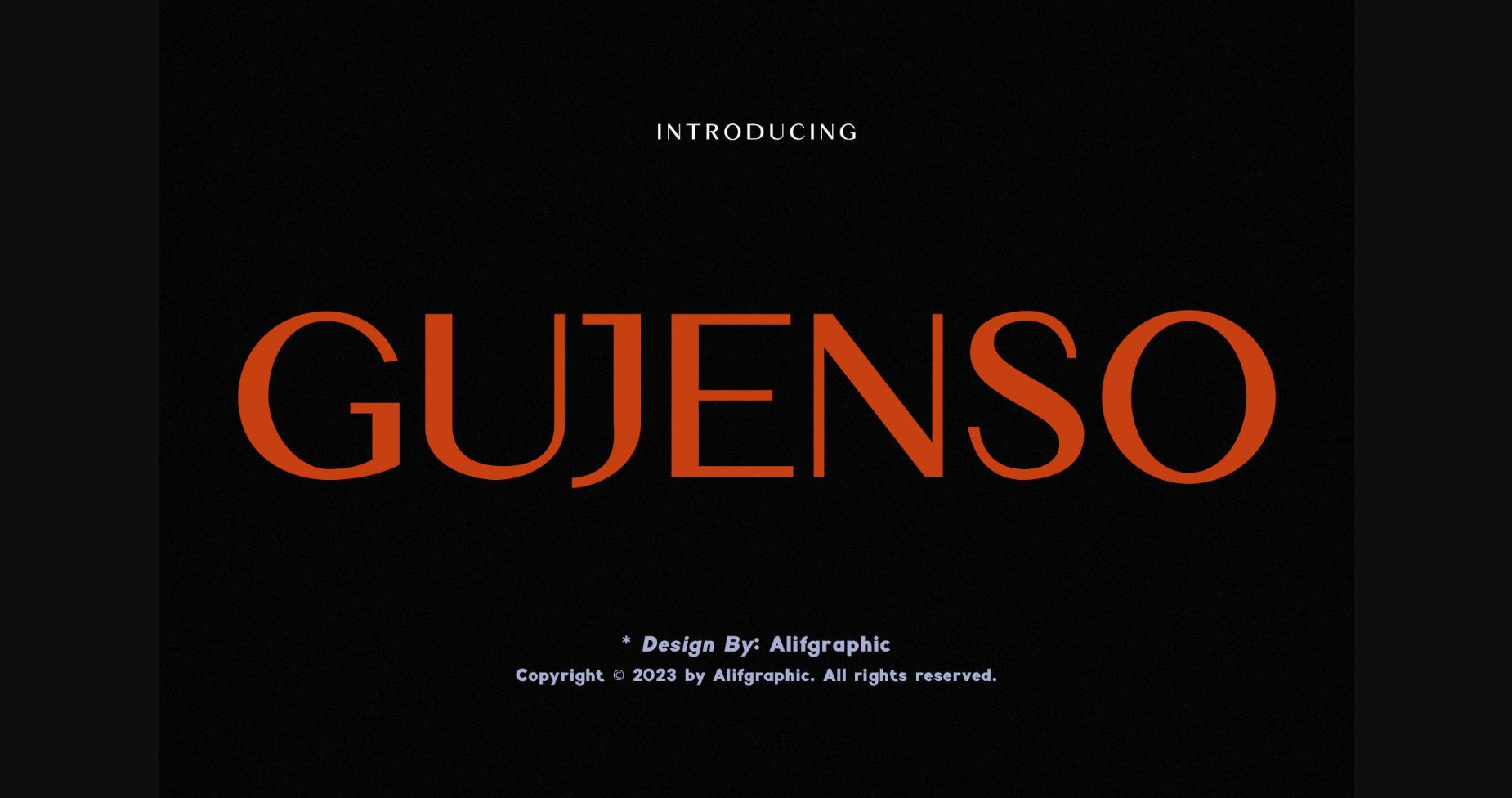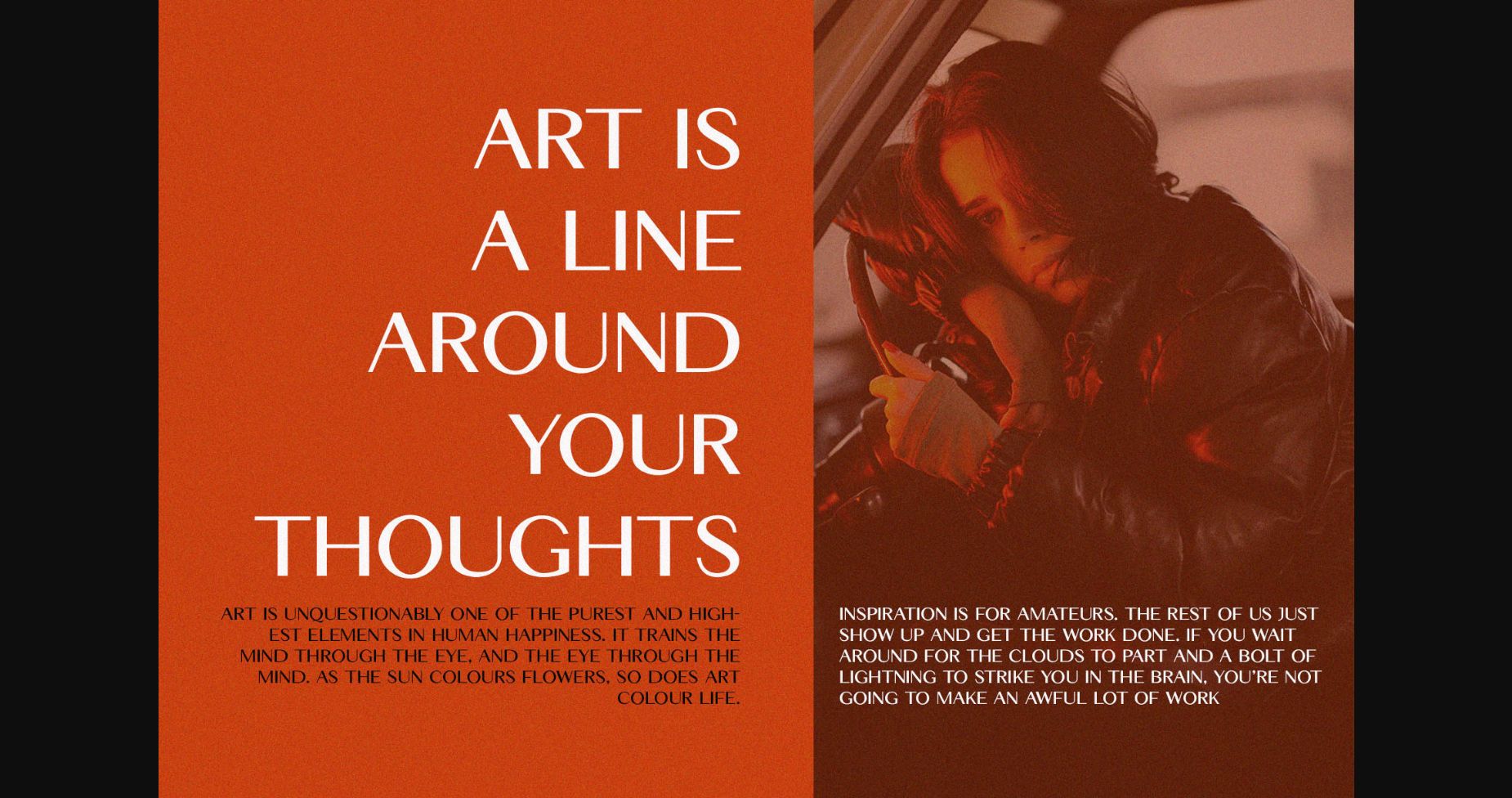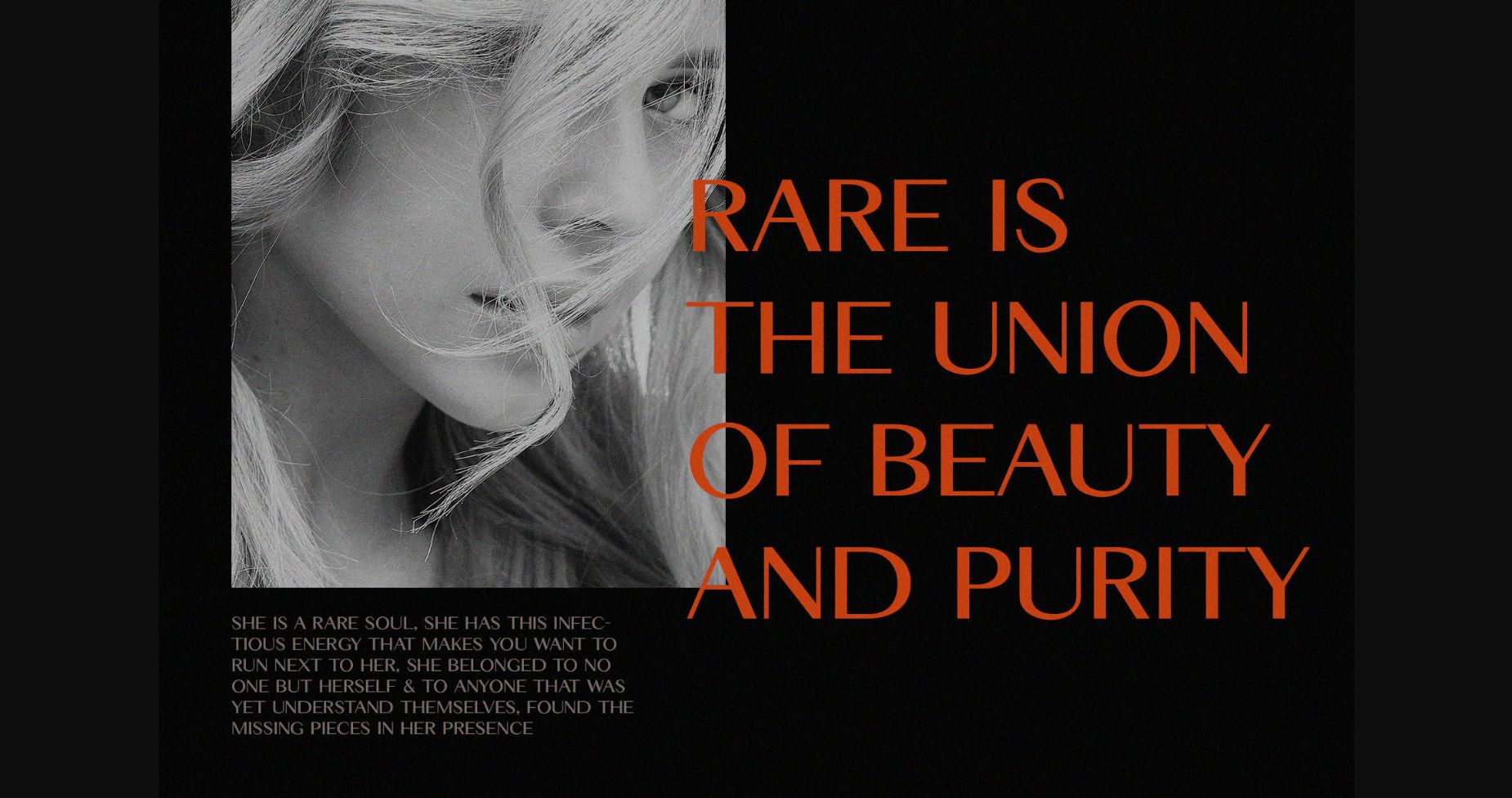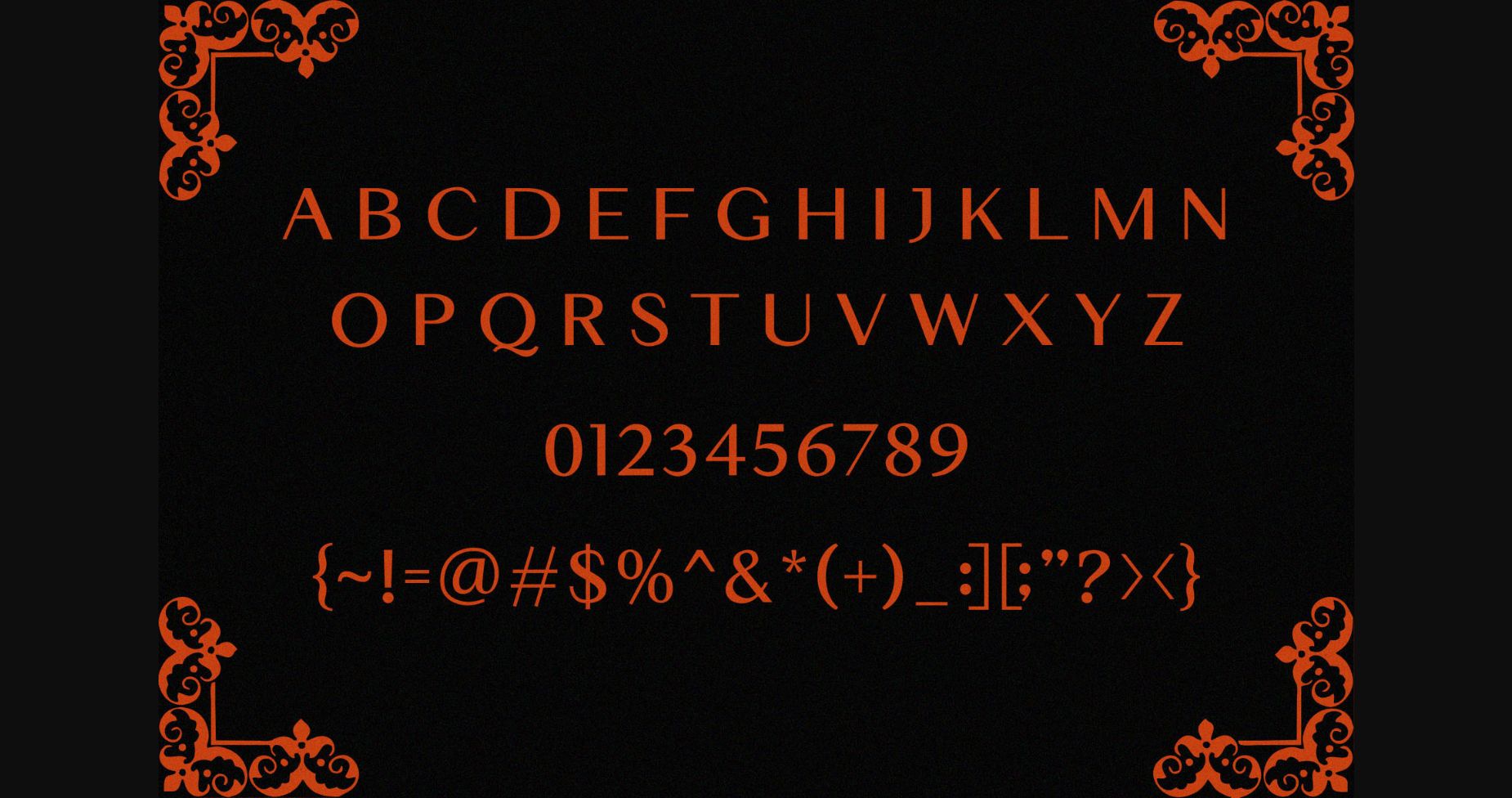
About Gujenso Font
Introducing the new Gujenso Modern Sans-Serif
Gujenso is a classy, modern sans font.
This font is modern and elegant and works great for websites, logos, magazines, and social media. This font is matched and ready to be used together for your next design!
For those of you who need a touch of elegance, style, classy, chic, and modernity for your designs, this font is made for you!
Gujenso is a classy, modern sans font.
This font is modern and elegant and works great for websites, logos, magazines, and social media. This font is matched and ready to be used together for your next design!
For those of you who need a touch of elegance, style, classy, chic, and modernity for your designs, this font is made for you!